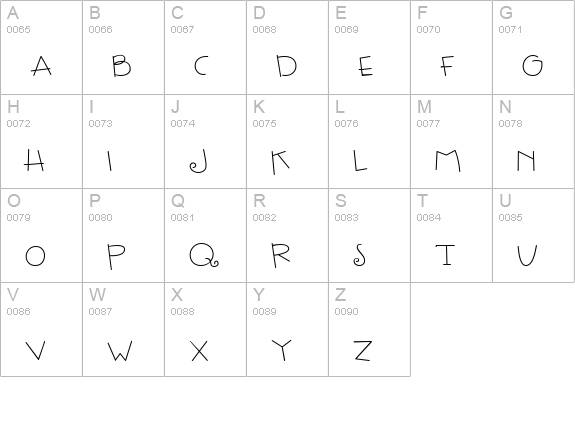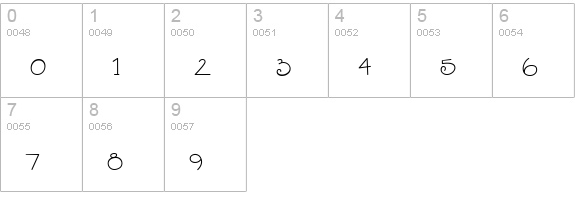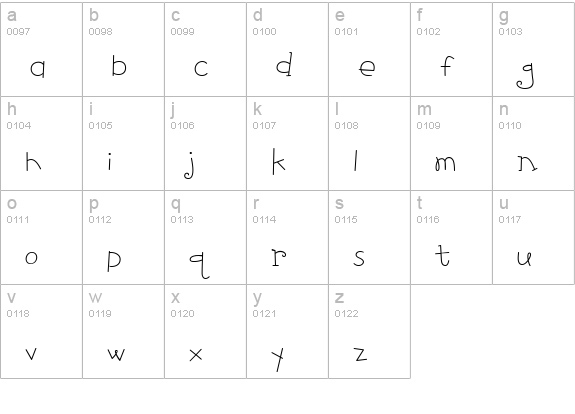
CK Fun Font Details
Introducing CK Fun font, a playful and whimsical typeface designed to add a touch of joy and creativity to your projects. With its charming and unique characters, CK Fun font is perfect for a variety of designs, from invitations and greeting cards to posters and social media graphics. This delightful font is sure to bring a smile to your audience's face. The best part? CK Fun font is available for free download at FontsMarket.com. So go ahead and add a splash of fun to your designs with this cheerful and versatile typeface. Let your creativity shine with CK Fun font!